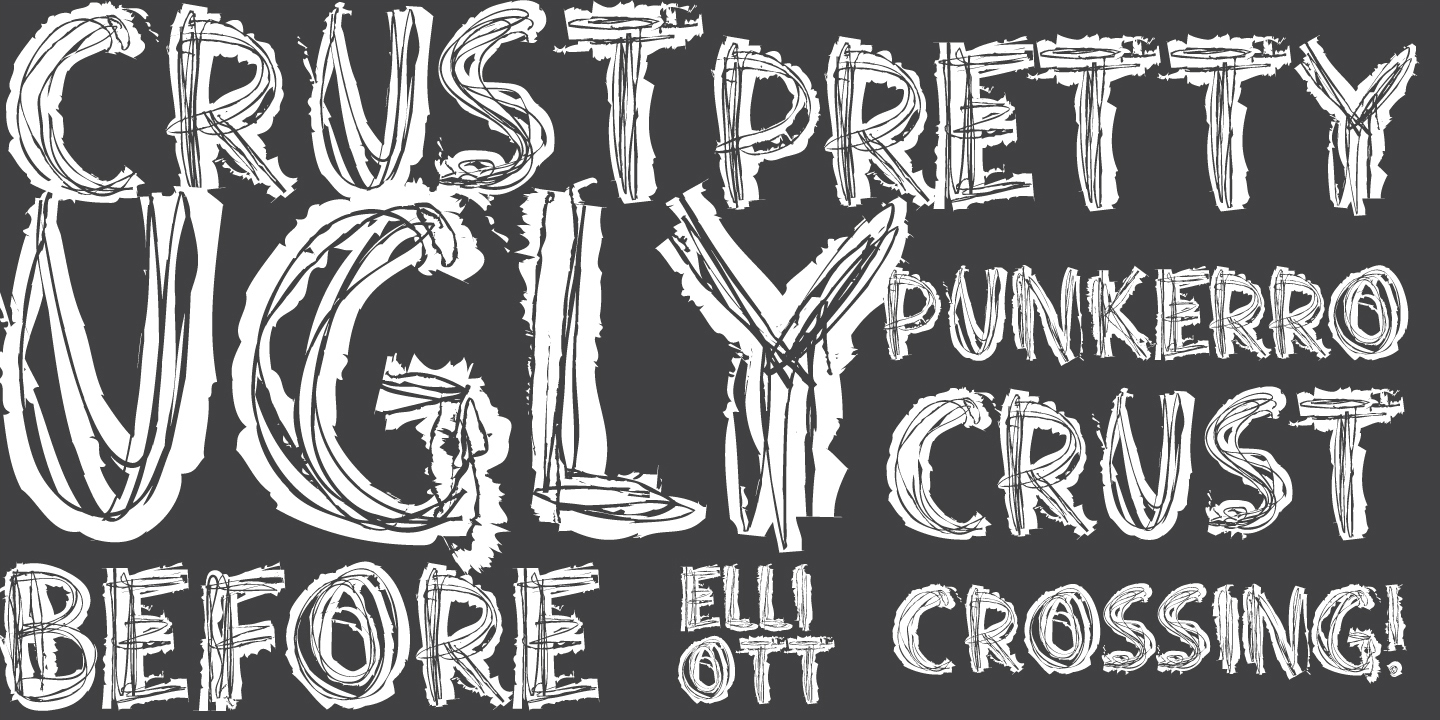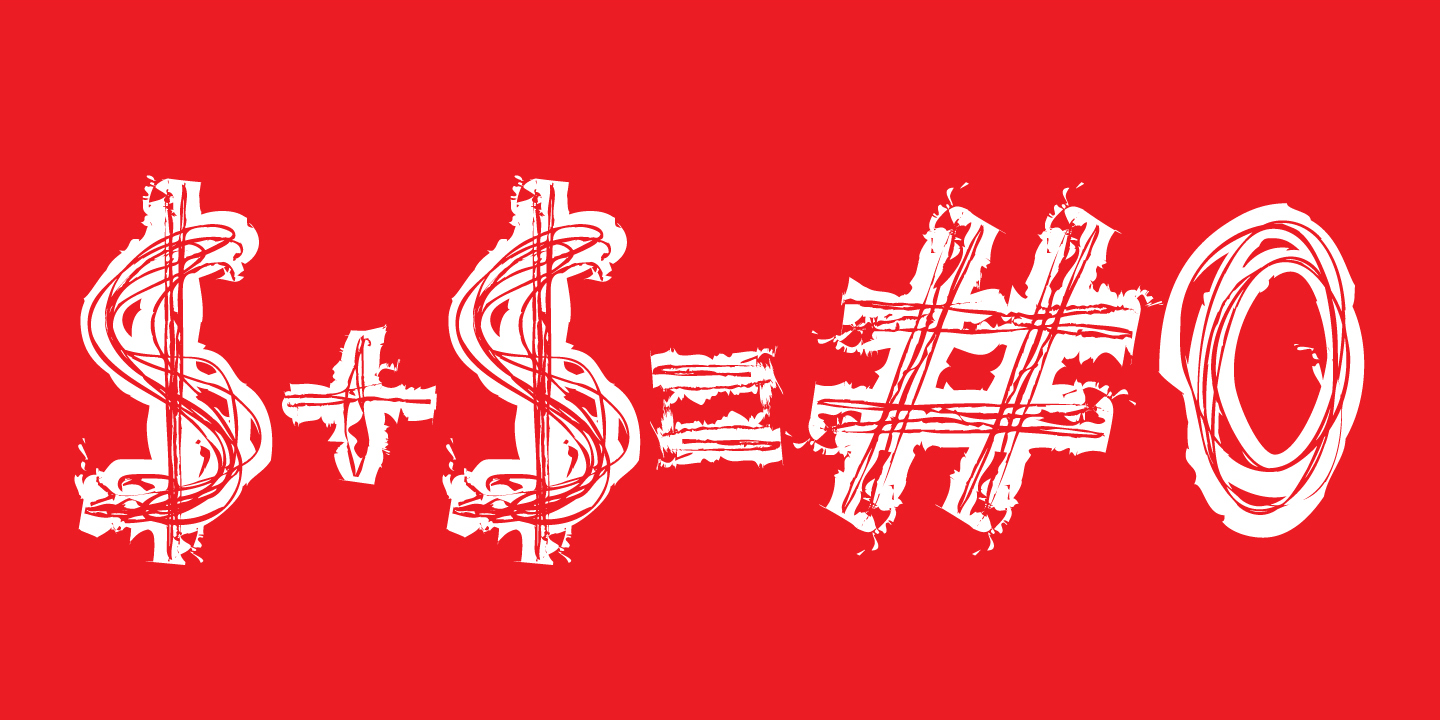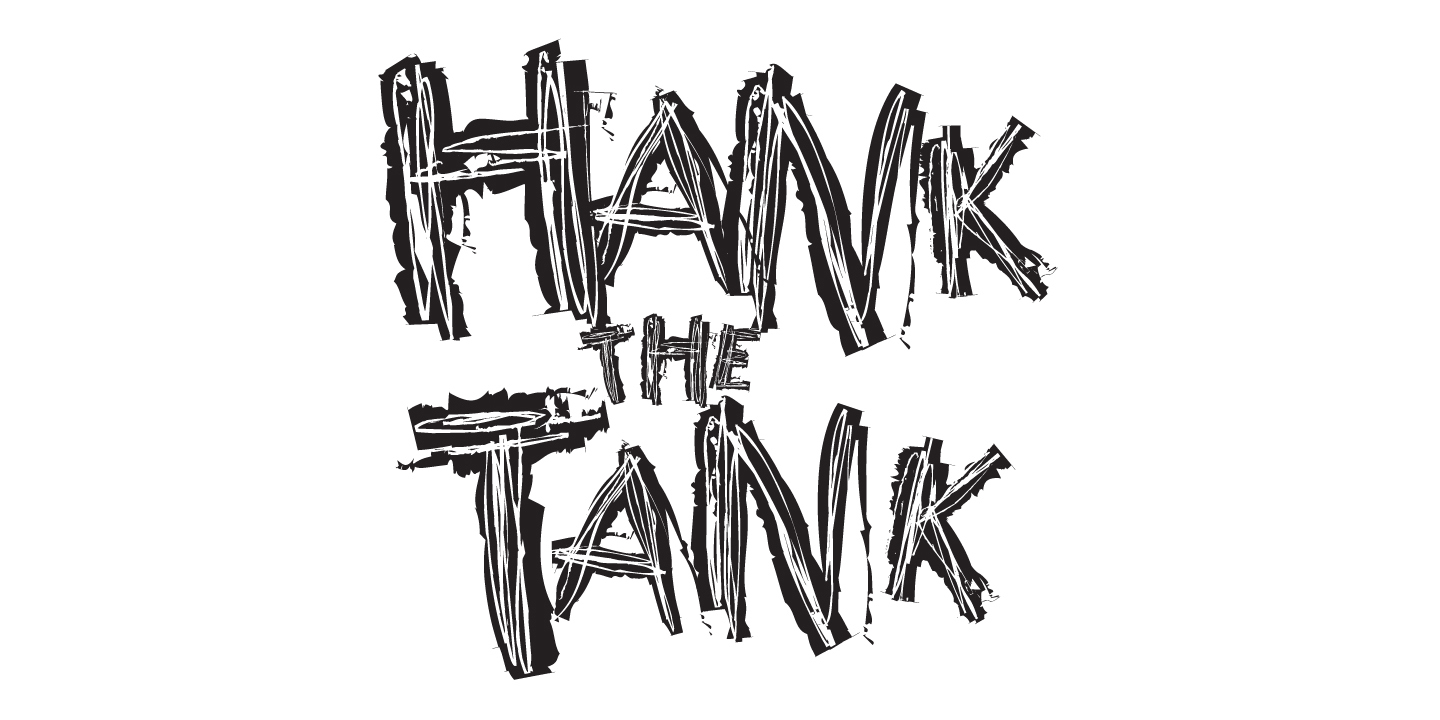
Punkerro Crust is acyl written type inspired with Crust music. Looks like mixture of couple of printing techniques into one > etching + intaglio + mezzotint.